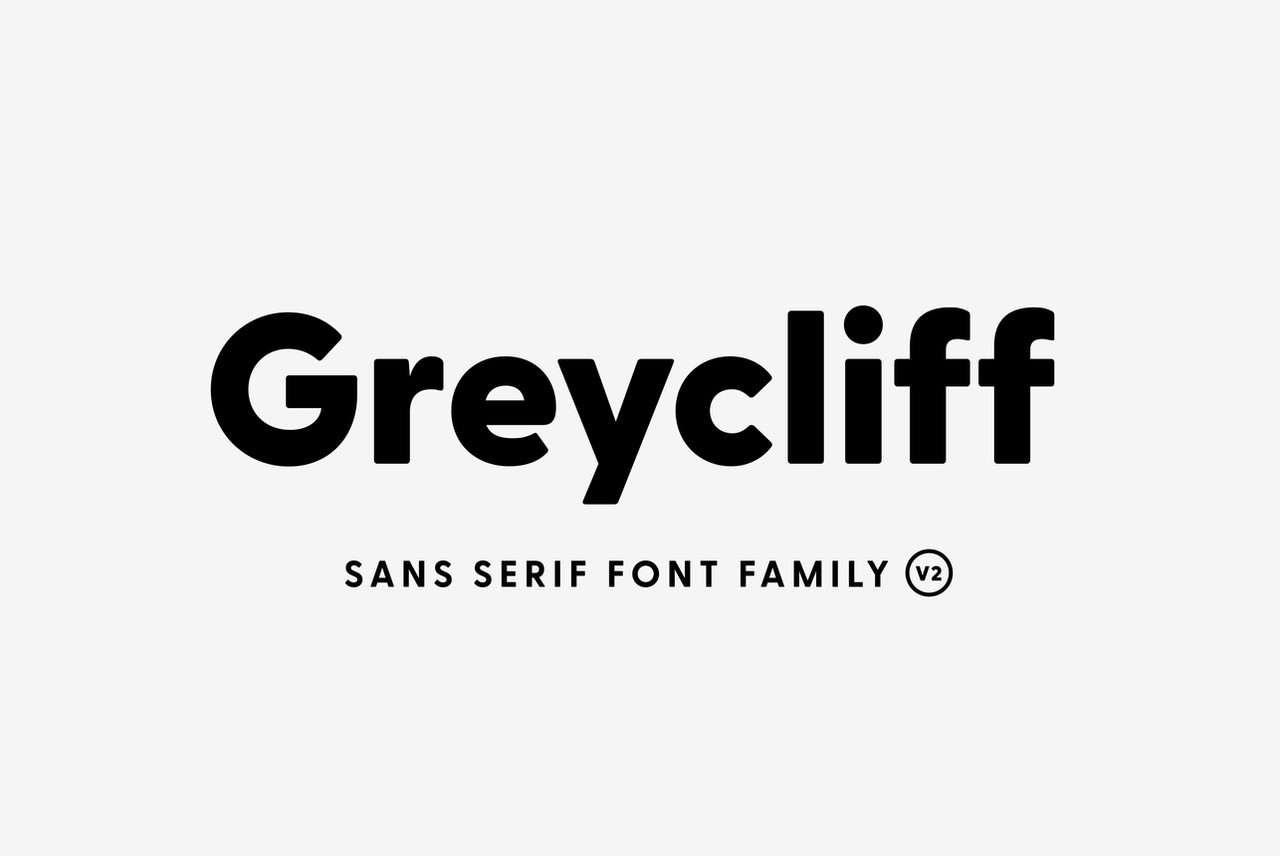
**Rugged, hearty, and warm,** Greycliff® CF is a versatile font family. Strong capitals and a smooth, open lowercase are effective in a variety of applications. The geometric, near-monoline construction lends a classic durability, tempered by softened edges and vibrant shapes. **Version 2.5** adds support for Greek, Cyrillic, and Vietnamese, improved hinting, and new glyphs including several currency symbols.